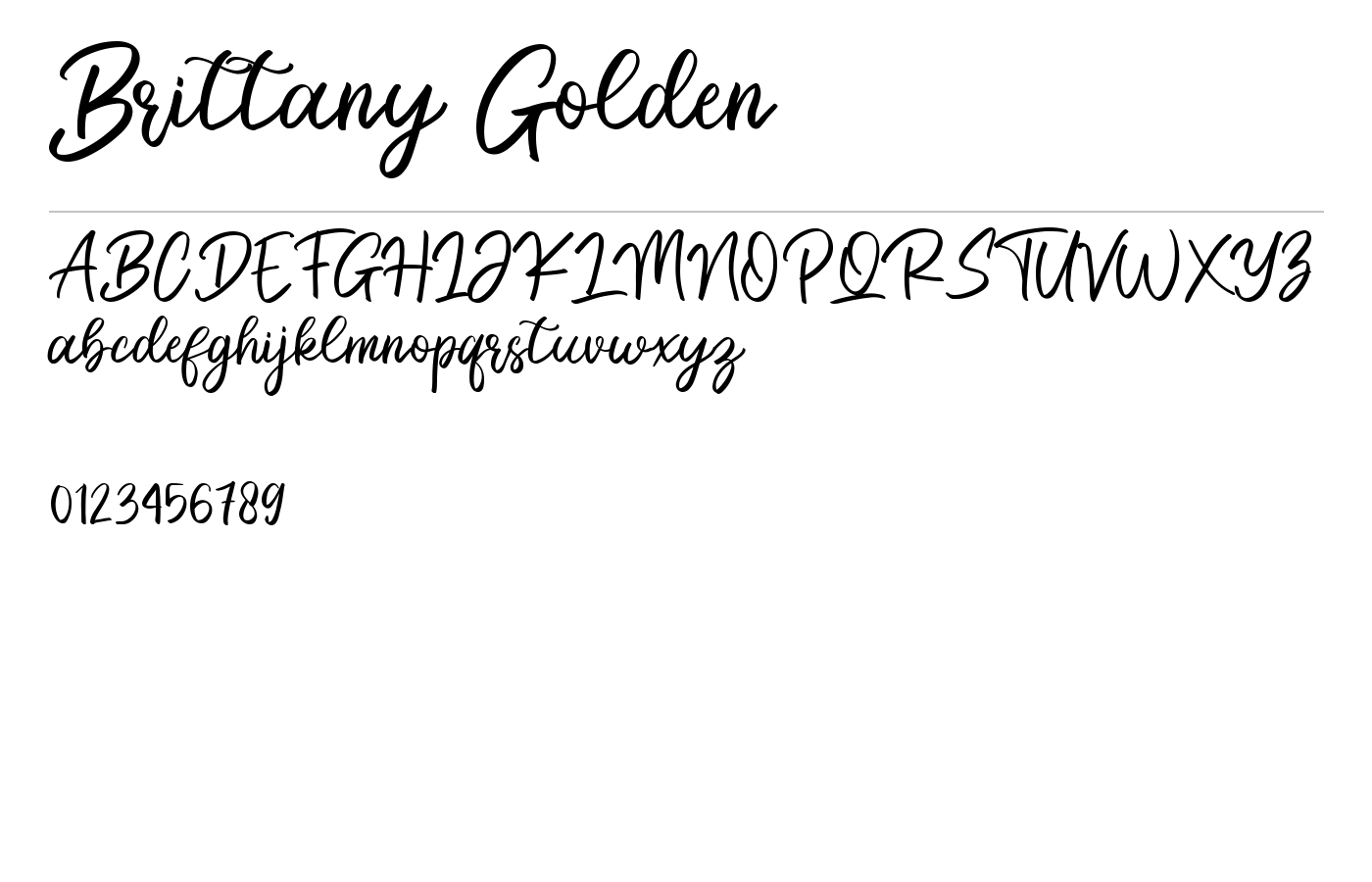
Brittany Golden is a lively and elegant handwritten script font that combines flowing strokes with a casual yet refined style. Its medium weight and slightly condensed letterforms create a friendly and approachable feel, making it ideal for branding, invitations, and creative projects that seek a personal and stylish touch. This font works beautifully in headlines and logo designs where a warm, hand-crafted impression is desired.
Brittany Golden Font
About Brittany Golden Font